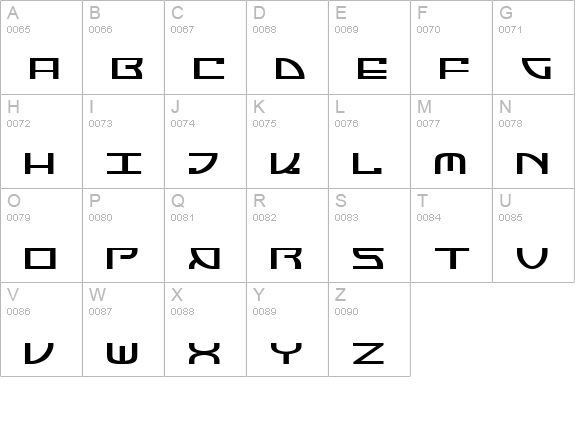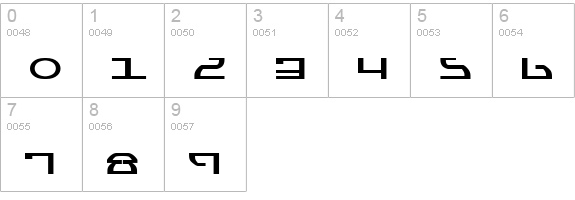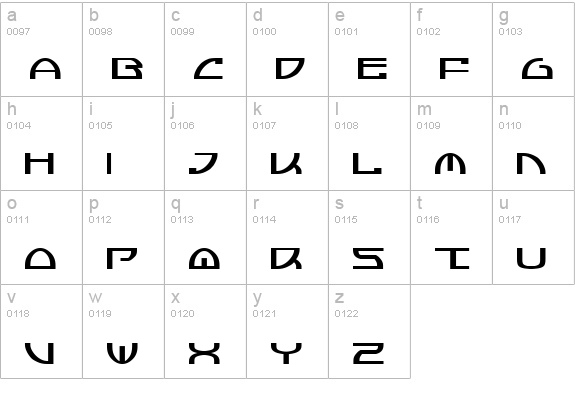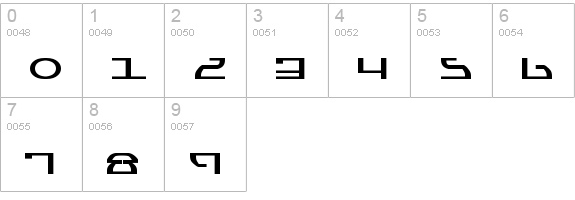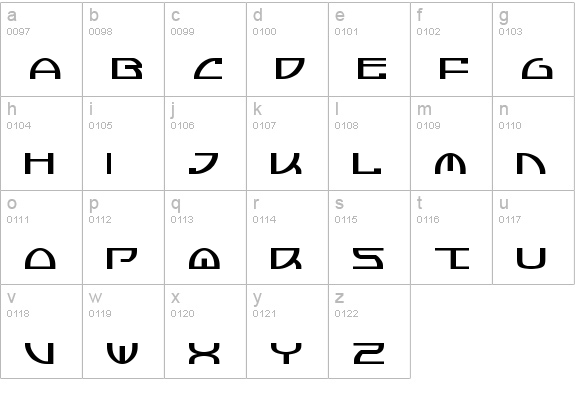
Jumptroops Font Details
Introducing Jumptroops font, a dynamic and modern typeface designed to make your projects stand out. With its bold and energetic appearance, Jumptroops is perfect for creating eye-catching headlines, posters, logos, and more. This versatile font exudes a sense of movement and excitement, making it ideal for projects that require a touch of flair. One of the best things about Jumptroops font is that it is completely free to download. That's right, you can add this stylish font to your collection without spending a dime. Simply head over to FontsMarket.com to grab your free copy of Jumptroops and start incorporating its unique style into your designs today. Whether you're working on a branding project, a social media graphic, or a website design, Jumptroops font is sure to make a bold statement. Its sleek lines and contemporary feel will help you achieve a professional and polished look with ease. Don't miss out on this fantastic font – download Jumptroops for free now and take your designs to the next level.